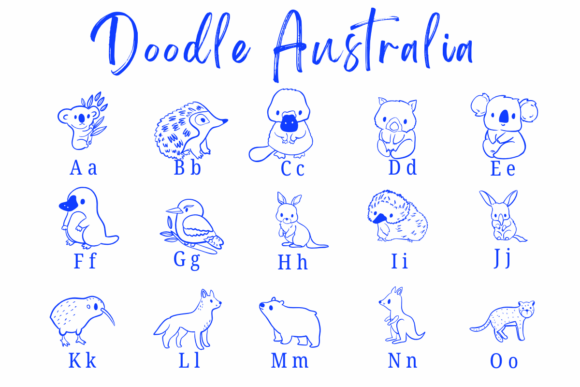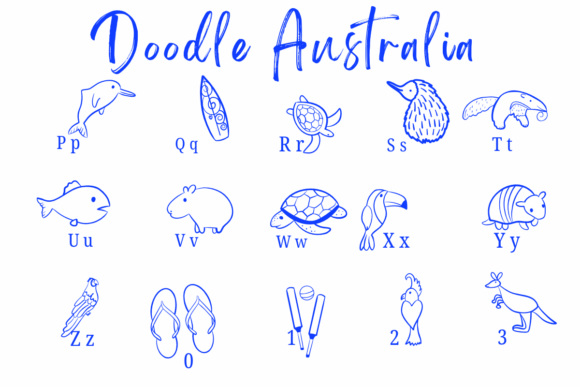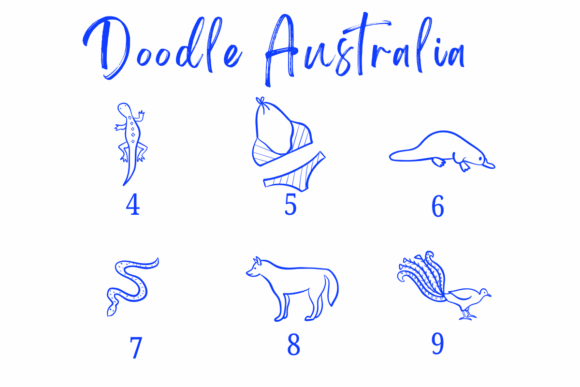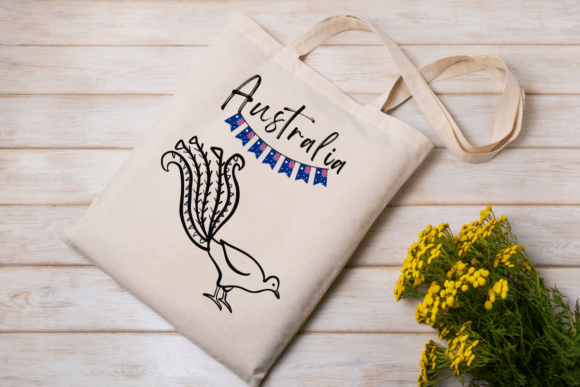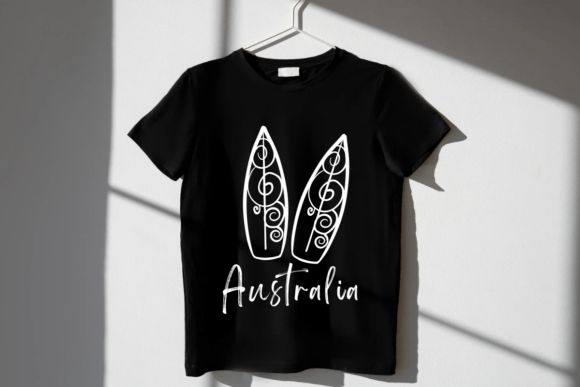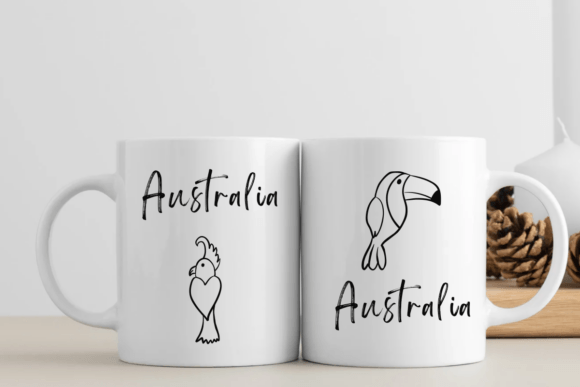
Meet the Cutest Font Down Under
Have you ever been brainstorming a design project, and suddenly a burst of creativity hits you – a quirky idea, a fun color palette, or a unique typography style? That’s exactly what happened to me when I stumbled upon the Doodle Australia Font. This adorable font is a masterclass in creative expression, bringing together the charm of Australian wildlife with the playfulness of a doodle.
The Doodle Australia Font is a collection of illustrations that double as letters, featuring lovable animals like kangaroos, koalas, and crocodiles. It’s the perfect tool for designers looking to add a touch of Aussie whimsy to their projects. Whether you’re working on a travel brochure, a children’s book, or a social media campaign, this font is sure to bring a smile to your audience’s faces.
Doodle Australia Font Key Features
- Font Family: Doodle Australia is a unique, hand-drawn font family designed to evoke a sense of Australian culture and nostalgia.
- Character Count: The font family includes a wide range of characters, including uppercase and lowercase letters, numbers, and punctuation marks.
- Unique Characteristics: The font’s hand-drawn style, intricate details, and nostalgic feel make it an ideal choice for designers looking to add a touch of Australian charm to their projects.
Doodle Australia Font Review
First off, let me say that I love the playful, hand-drawn feel of the Doodle Australia Font. It’s perfect for adding a touch of whimsy to your designs ✨. The font is highly customizable, which is great for getting the exact look you want. I also appreciate the variety of styles and weights available – it’s like having a whole collection of fonts in one ✨.
Here are some specific things I like about Doodle Australia Font:
- Playful, hand-drawn feel
- Variety of styles and weights
- Perfect for adding a touch of whimsy to designs
Now, let’s talk about the limitations. I do think the Doodle Australia Font is a bit overused – it’s become a bit of a cliché in the design world ⚠️. It’s also not the best choice for formal or professional designs, as it can come across as too casual ⚠️.
Overall, I think the Doodle Australia Font is a fun and creative choice for designers who want to add a playful touch to their work. While it may have some limitations, it’s still a great option for the right projects ✨.
Getting the Most Out of Doodle Australia Font
To get the most out of the Doodle Australia font, try using it for:
- Creativity-driven projects, such as invitations, posters, and flyers.
- Children’s educational materials, like worksheets and activity sheets.
- Adding a playful touch to corporate branding and marketing materials.
The Doodle Australia font is ideal for projects that require a fun, playful, and creative vibe. Some common use cases include:
- Party invitations and decorations.
- Children’s birthday party materials.
- Summer camp and outdoor program materials.
Alternatives to Doodle Australia Font
Great Vibes is a fun, cursive font that’s perfect for creating a laid-back and casual atmosphere. It’s great for use in advertisements, social media, and websites that need a touch of whimsy. Compared to Doodle Australia Font, Great Vibes has a more relaxed and carefree feel, making it ideal for designs that require a fun and playful vibe.
Carolyna Pro is a modern, elegant font that’s perfect for creating a sophisticated and refined atmosphere. It’s great for use in branding, logos, and high-end marketing materials. Compared to Doodle Australia Font, Carolyna Pro has a more polished and refined feel, making it ideal for designs that require a touch of luxury and sophistication.